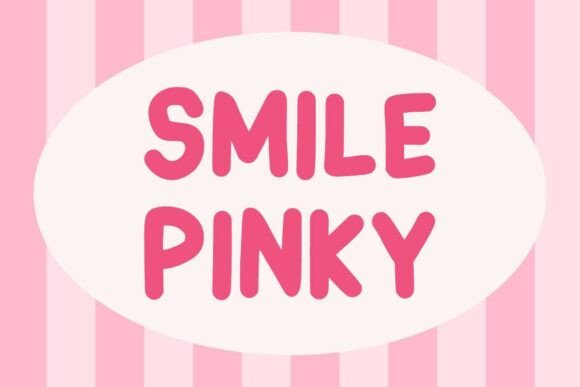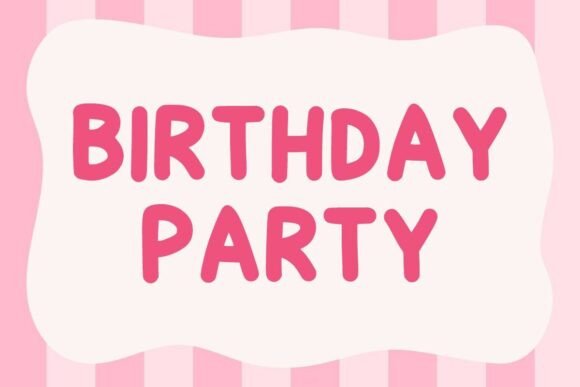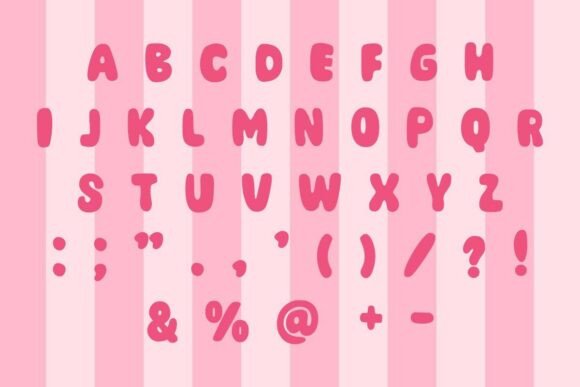
Introduction to Barbielove Regular Font
The Barbie Love font bursts with charm and playfulness, bringing a youthful spirit to any design.
Its rounded, chunky letters and doodle-like construction make it feel friendly, bubbly, and full of personality Each glyph has a hand-drawn quality with subtle inconsistencies that add to its quirky appeal.
Key Features of Barbielove Regular Font
Why Choose Barbielove Regular Font?